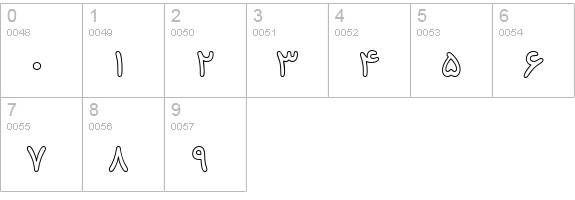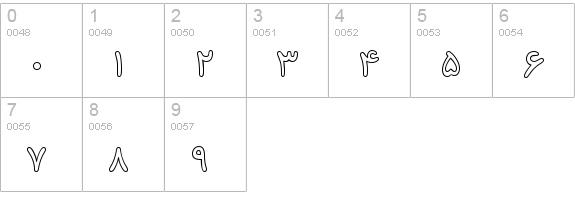
B Koodak Outline Font Details
B Koodak Outline font is a unique and eye-catching typeface that is perfect for adding a playful and modern touch to your designs. This fun and quirky font features a whimsical outline style that is sure to make your text stand out. Whether you're designing posters, invitations, or anything in between, B Koodak Outline font is a great choice for adding a touch of creativity to your projects. Best of all, this font is available for free download at FontsMarket.com, making it easily accessible for all your design needs. Don't miss out on the opportunity to enhance your projects with this charming and versatile typeface. Download B Koodak Outline font today and let your creativity shine!